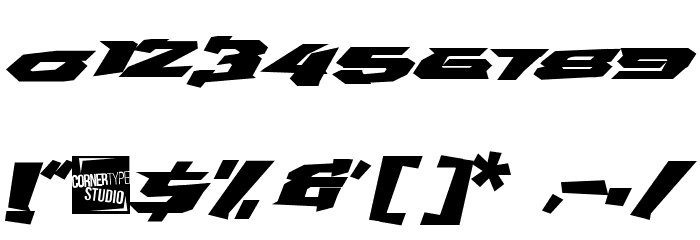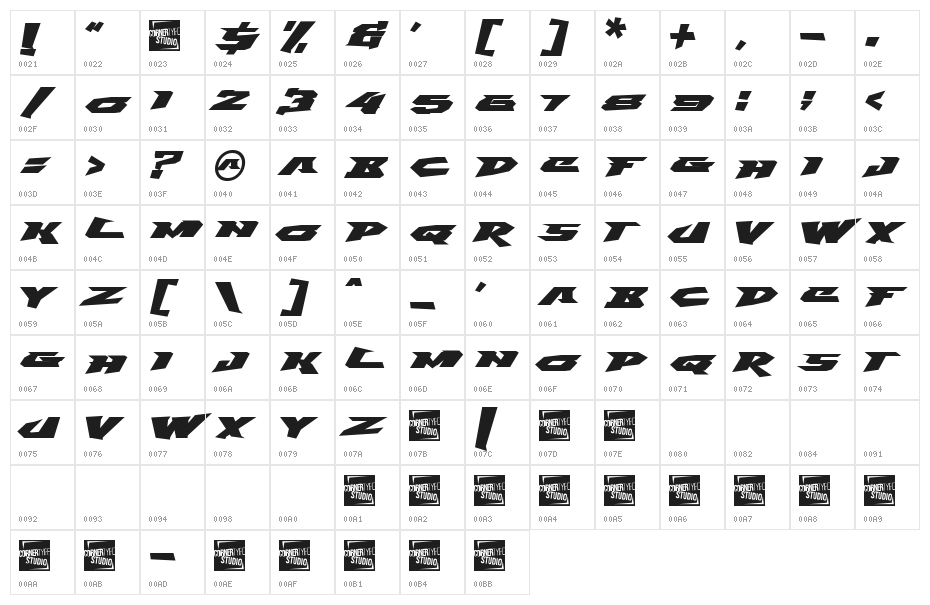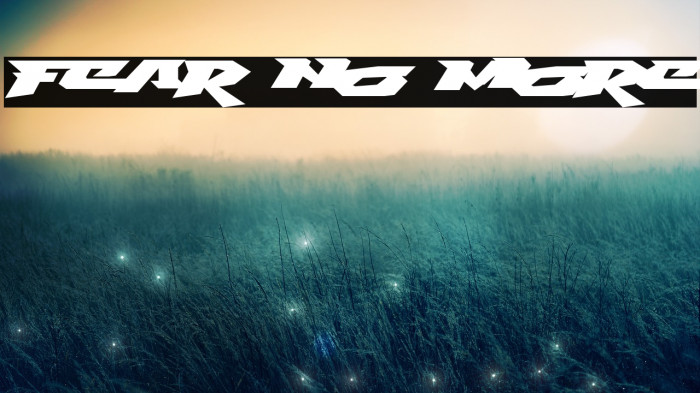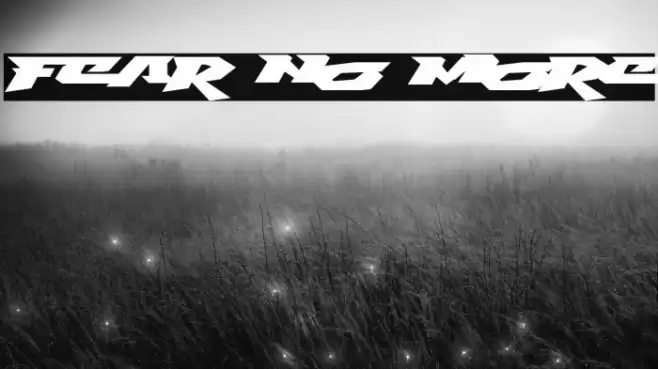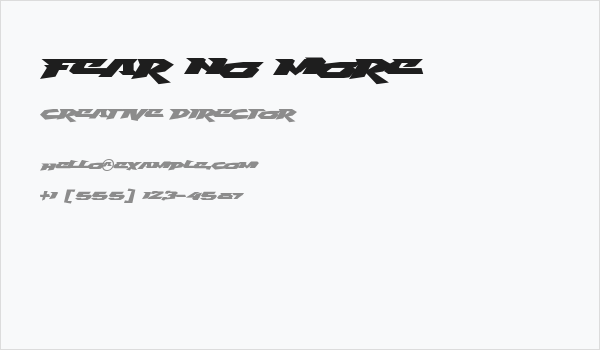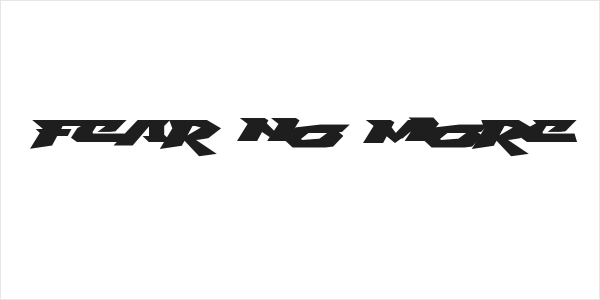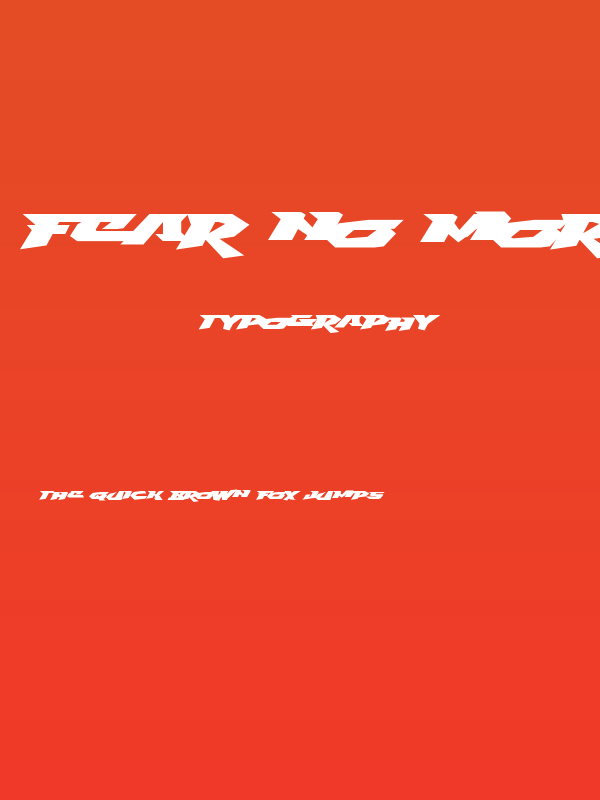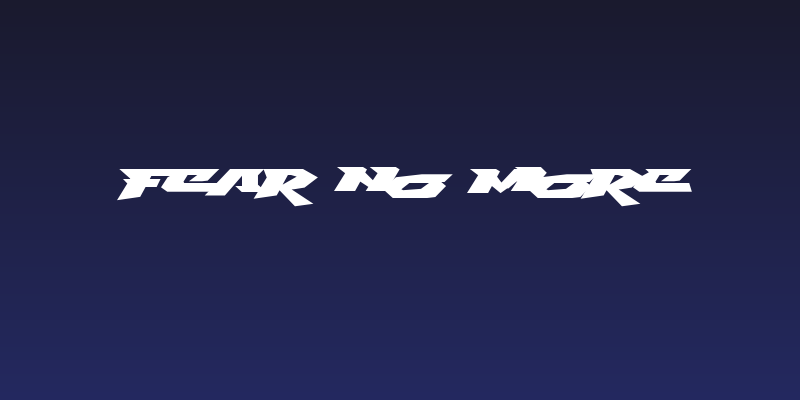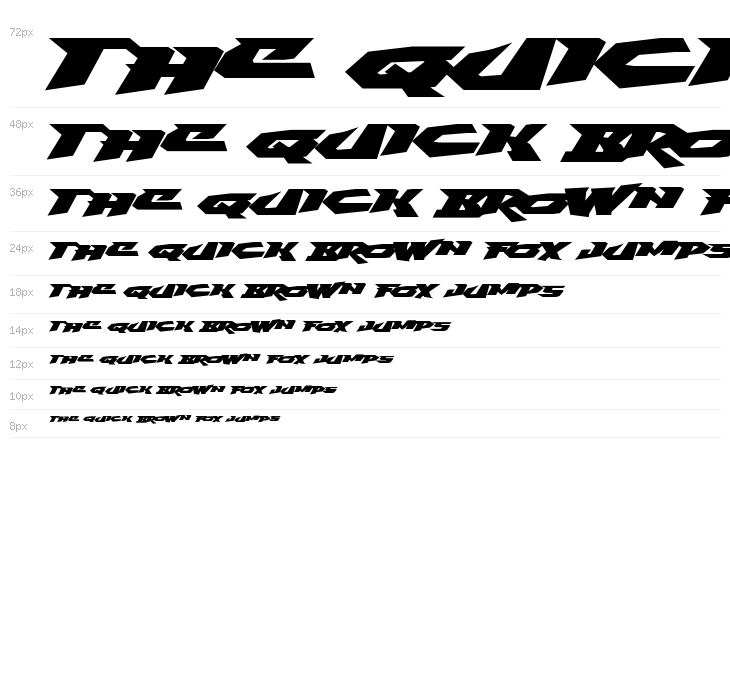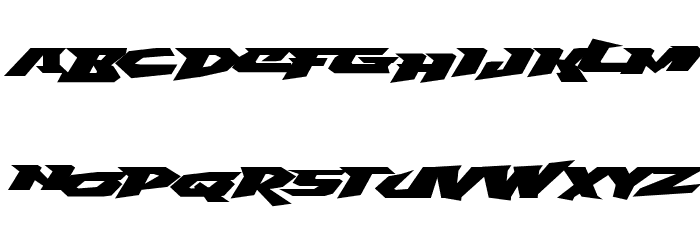
Fear No More Font
Fear No More Description
This font features a bold, angular design with sharp edges and a futuristic aesthetic. The characters are heavily stylized, giving them a dynamic and aggressive appearance. The uppercase and lowercase letters maintain a consistent style, with each character exhibiting unique cuts and angles that create a sense of movement. The numbers and special characters follow the same design principles, ensuring uniformity across all glyphs. This font's striking appearance makes it ideal for projects that require a strong visual impact.
| Proposed Projects | Ideal for video game titles, movie posters, branding for tech companies, or any project needing a modern, edgy look. |